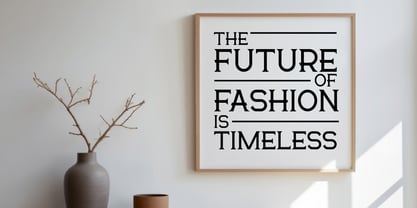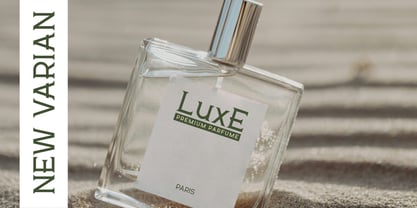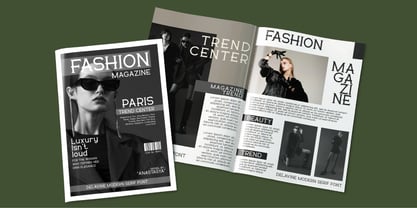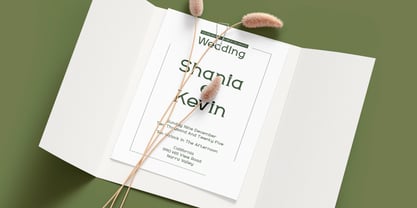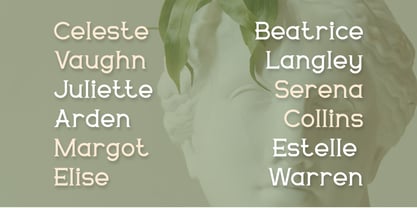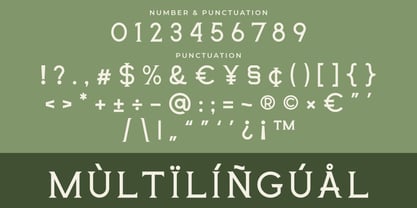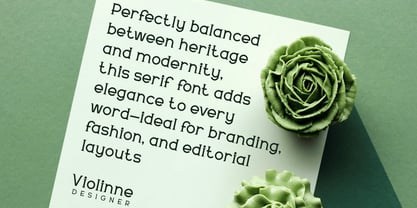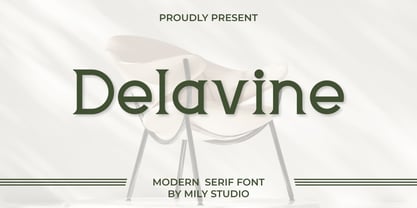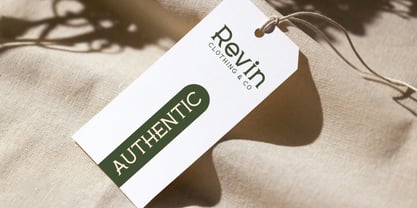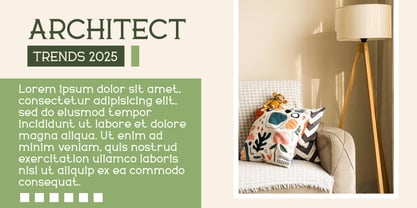
Delavine
by Mily Studio
Delavine is modern serif font. Embodies elegance and sophistication with its sleek lines, graceful curves, and stylish contrast, Delavine is perfect for high-end branding, editorial designs, fashion headlines, and luxury packaging. This typeface combines classic serif elements with a contemporary twist, making it versatile for both digital and print projects that seek a timeless yet modern aesthetic.